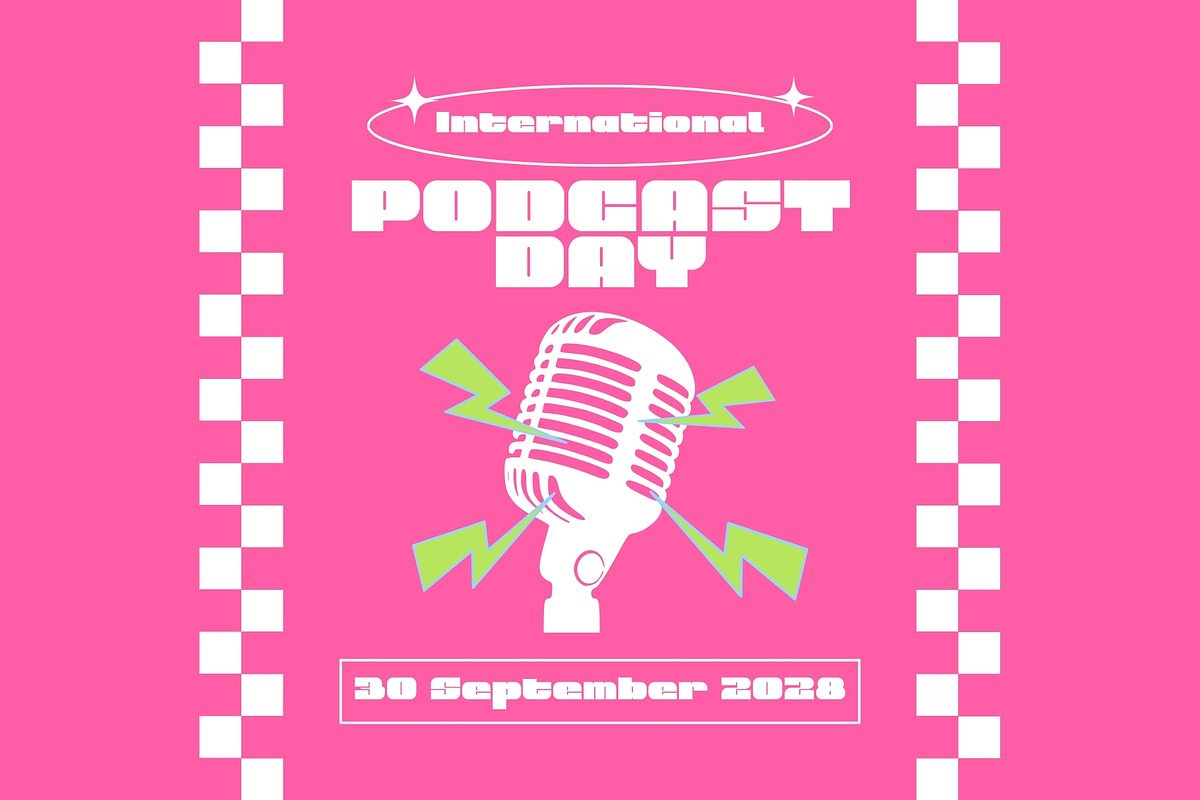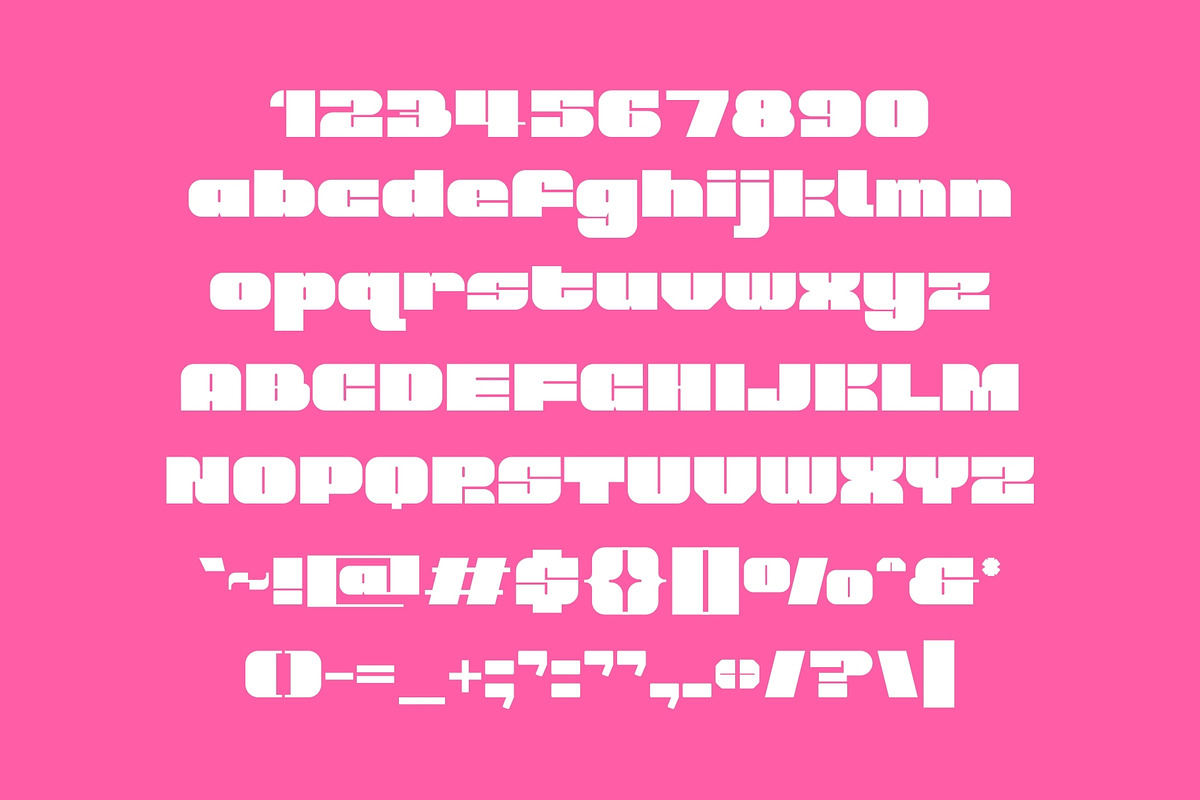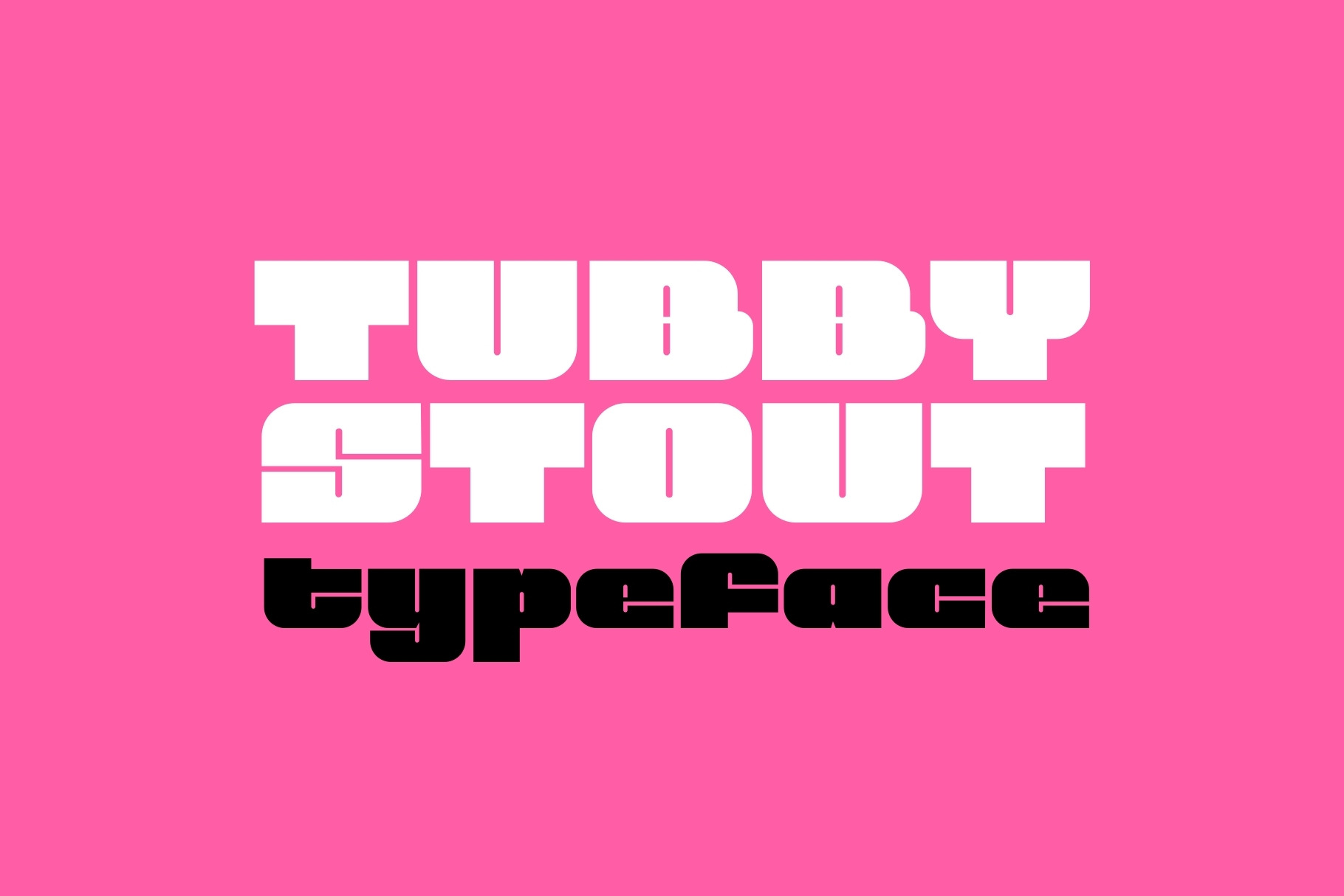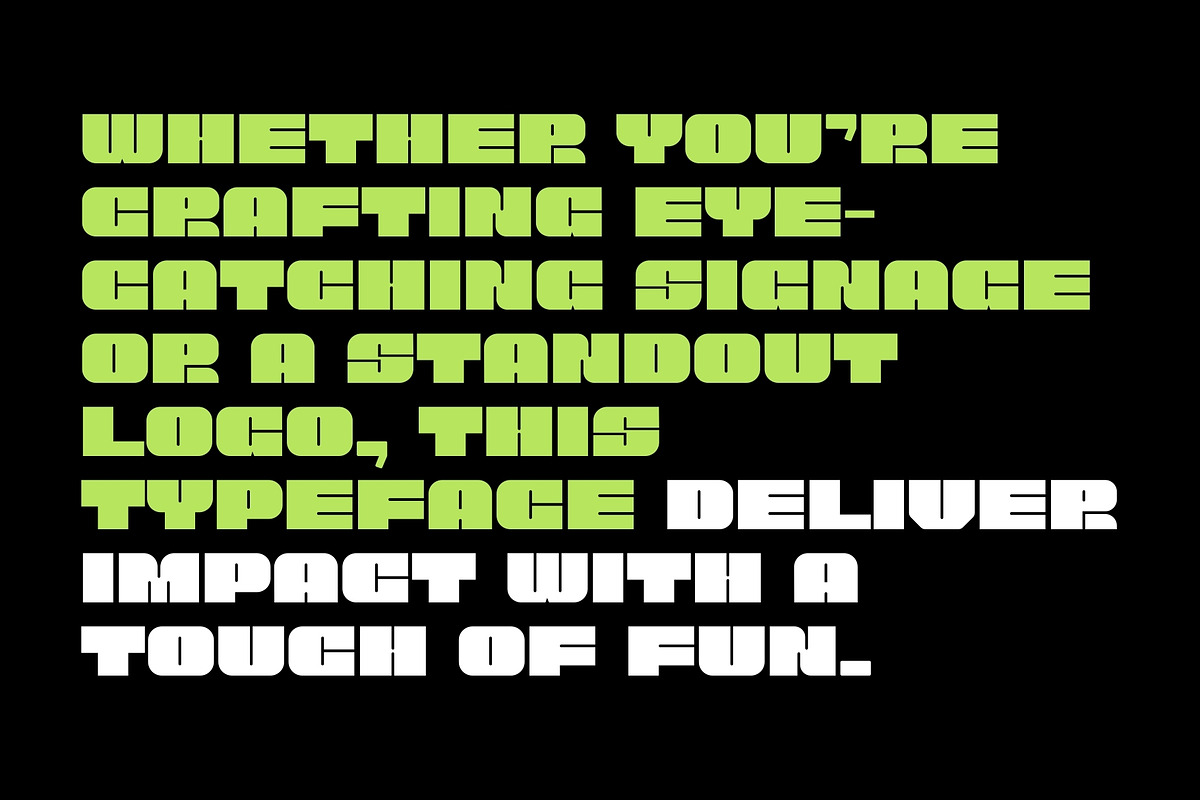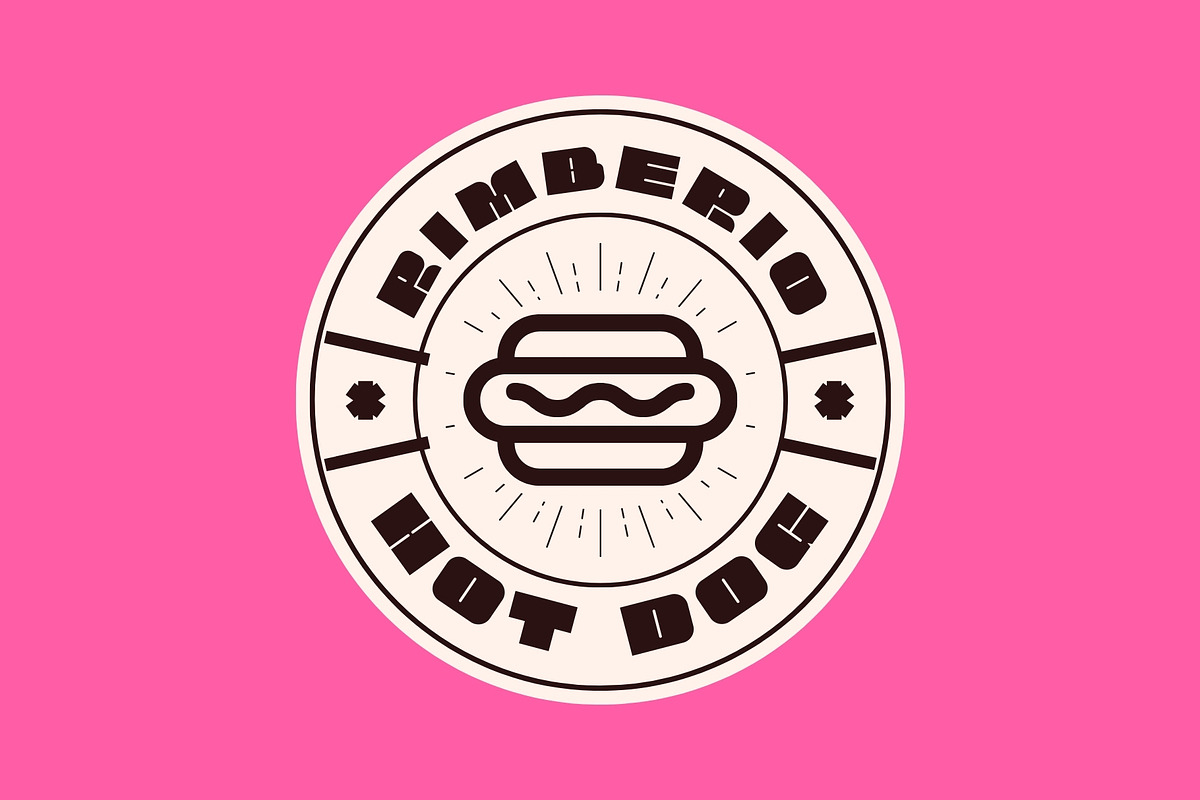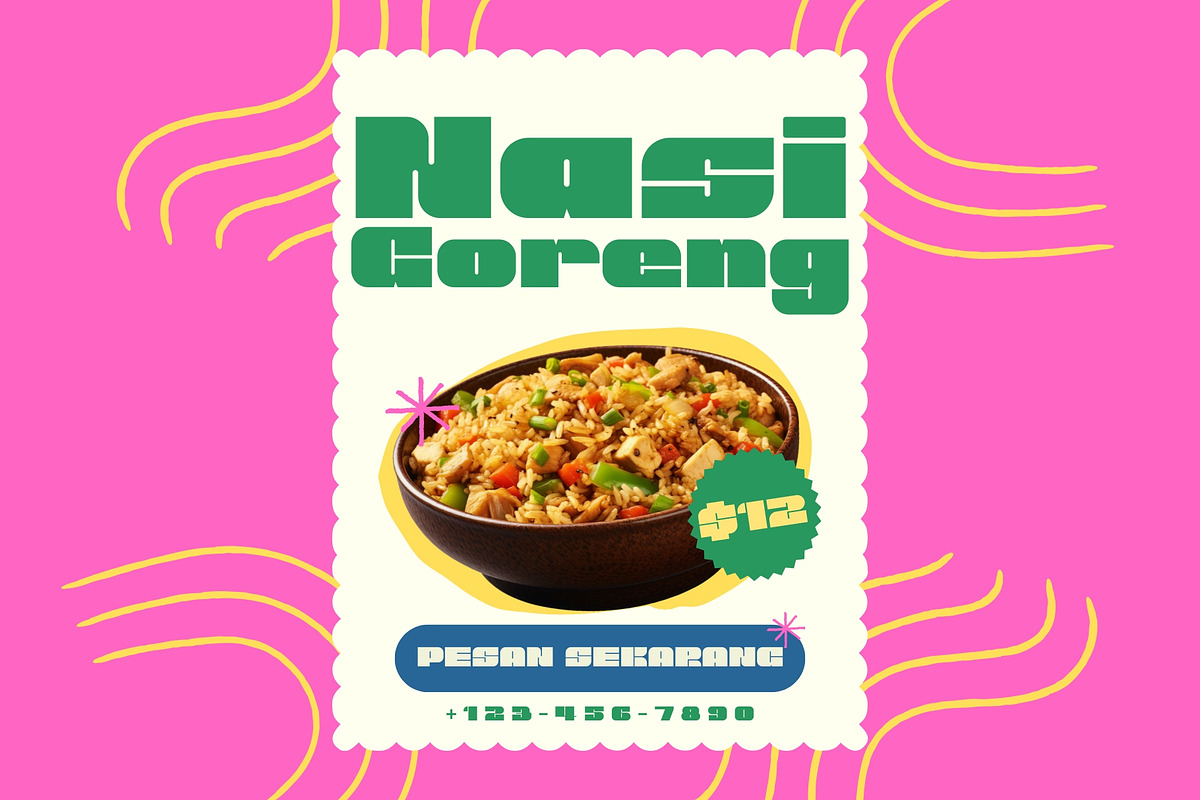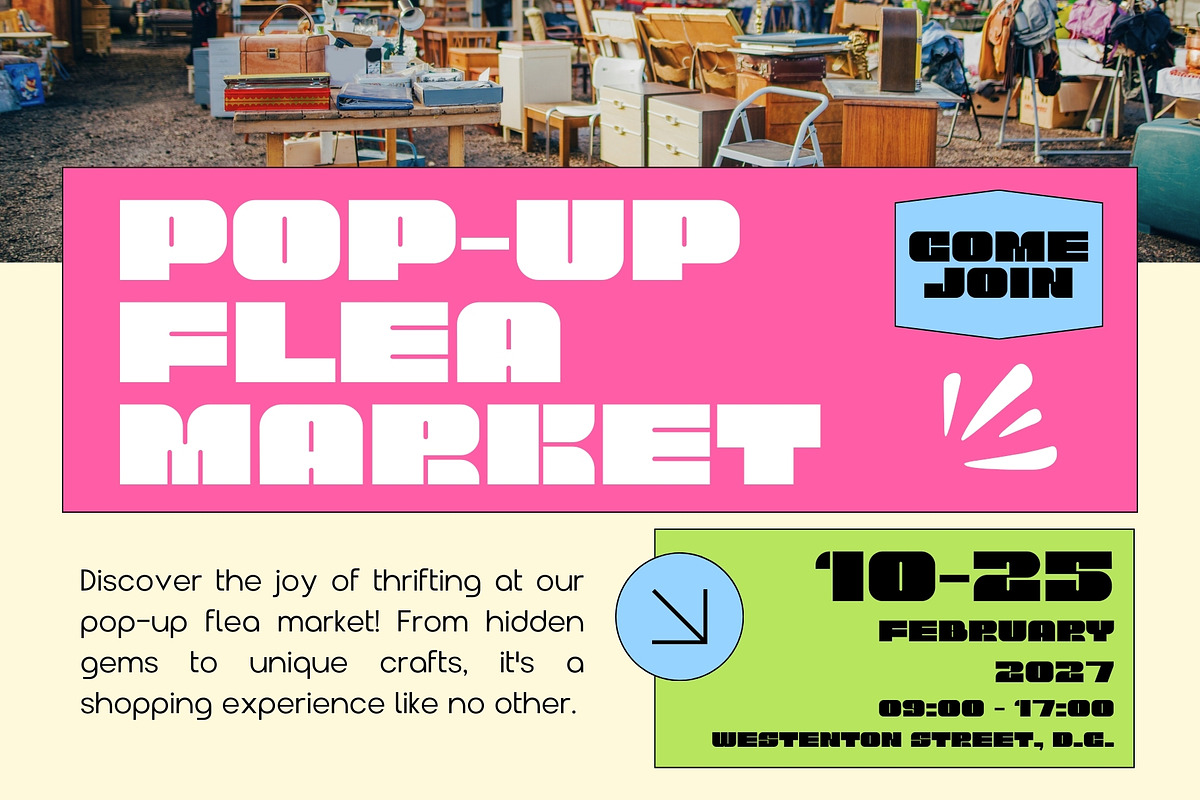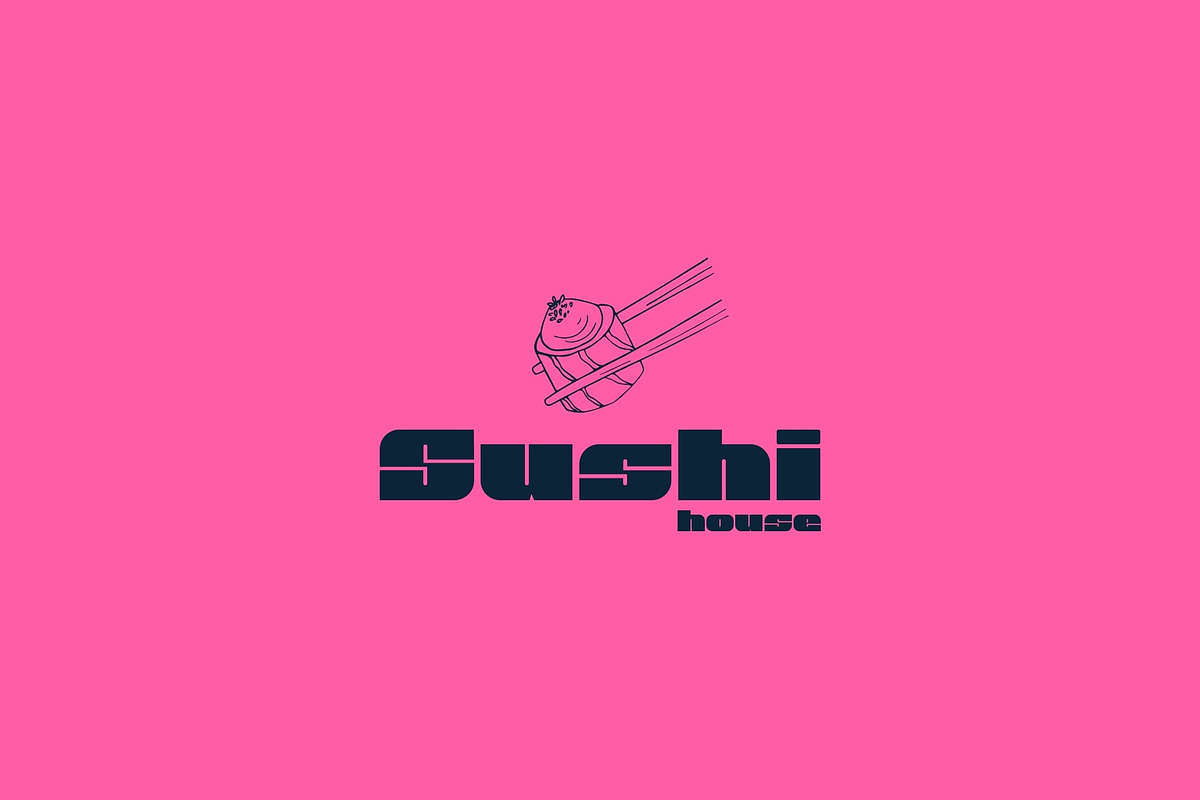
Tubby Stout - Big and Bold Typeface
Make a statement with Tubby Stout, a thick and chunky typeface designed to command attention! With its bold presence and playful charm, this font is perfect for branding, event posters, headlines, menus, and more.
Best used BIG and BOLD, Tubby Stout thrives in large formats where its strong character can truly shine. Whether you’re crafting eye-catching signage or a standout logo, this typeface delivers impact with a touch of fun.
If you’re looking for a font that’s full of confidence and charisma, Tubby Stout is your go-to choice!